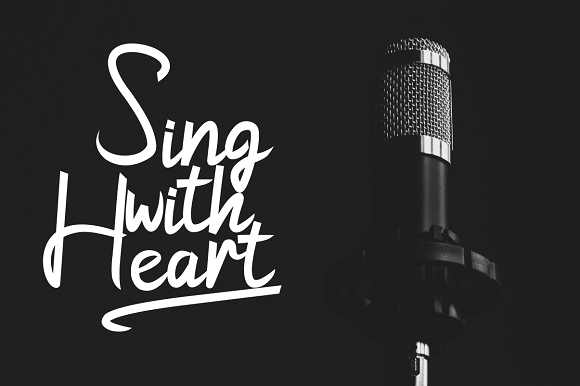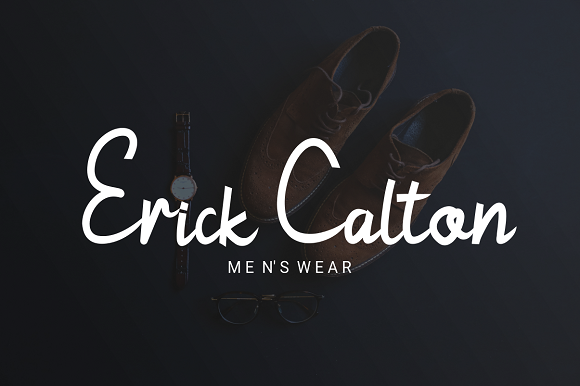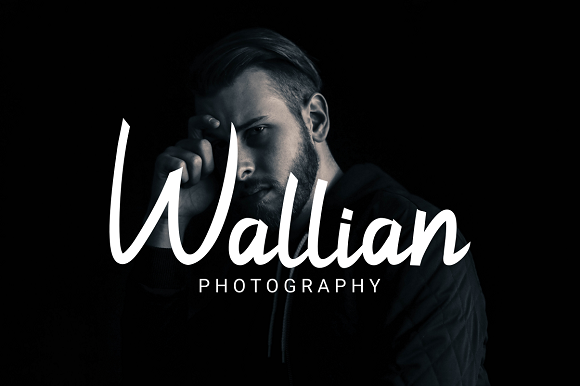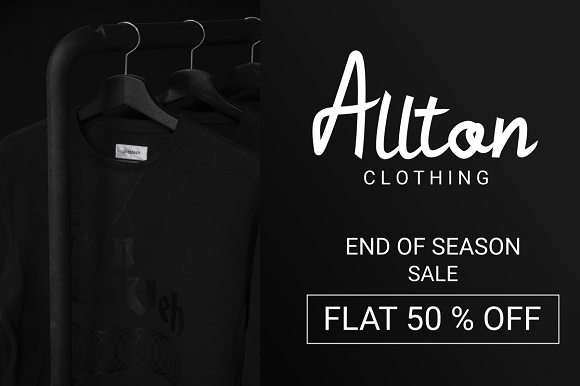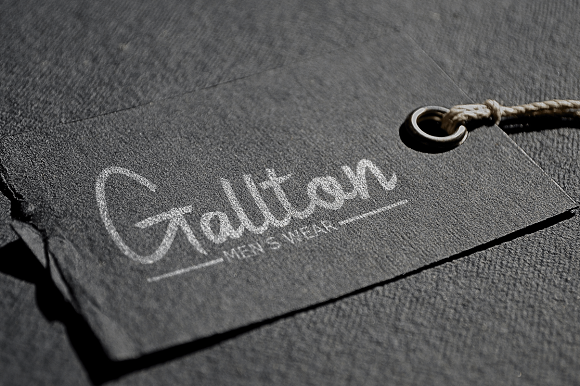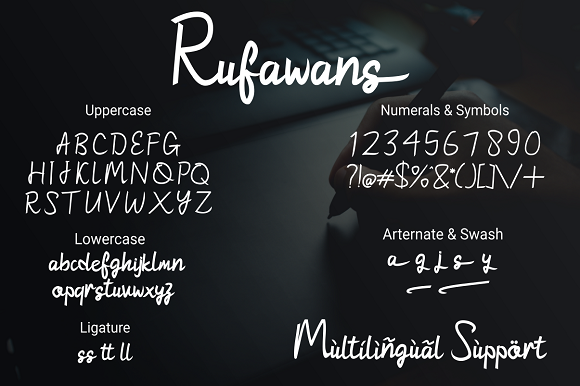
Introduction to Rufawans Font
The Rufawans is a fresh & modern script font.
It has a handmade calligraphy style and includes amazing decorative characters It’s perfect for invitations, greeting cards, branding materials, business cards, quotes, posters, logos and more.